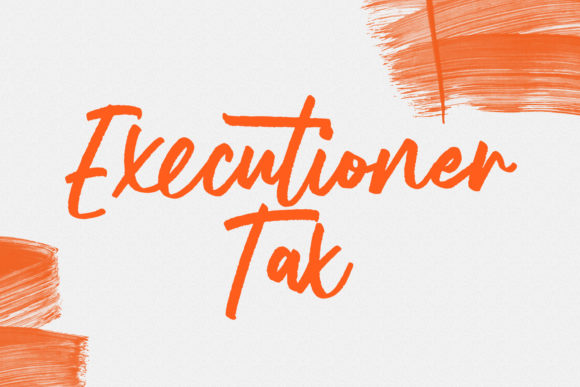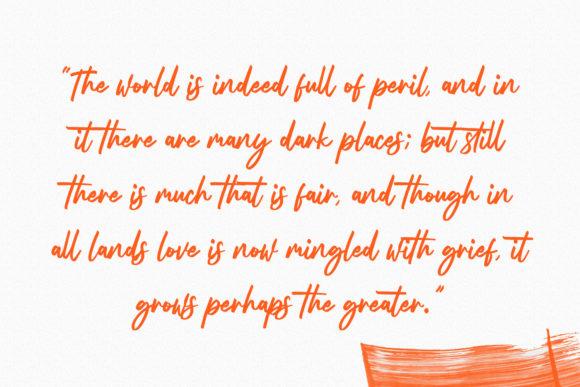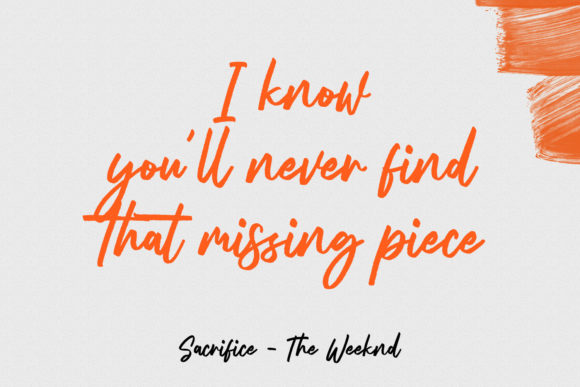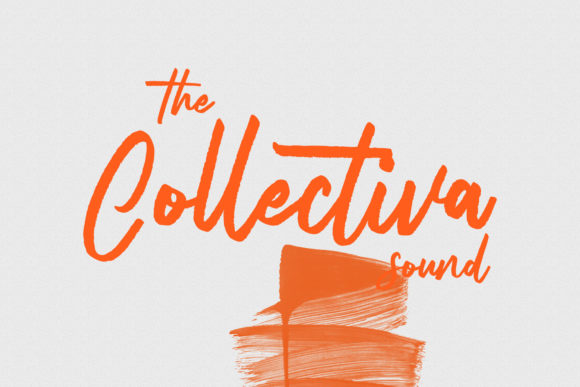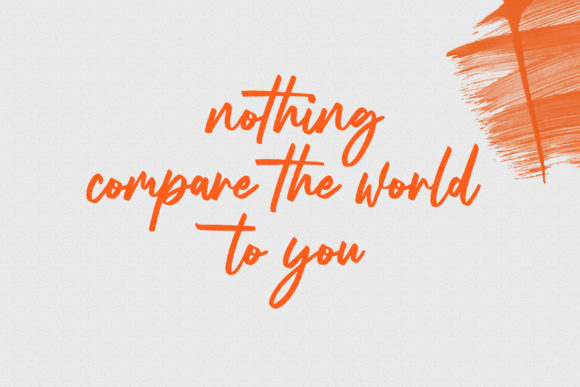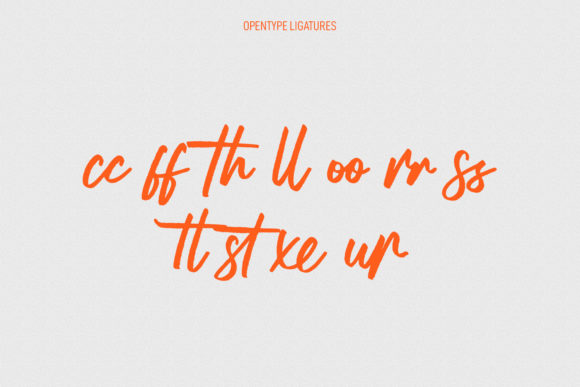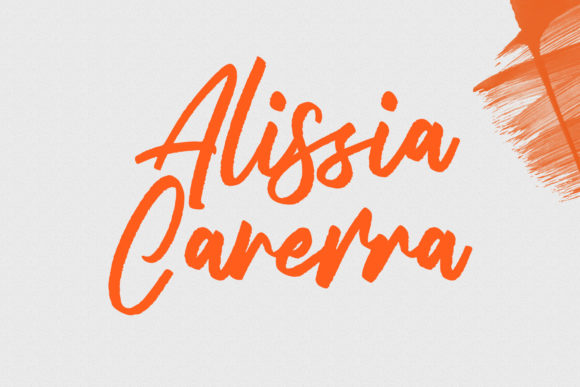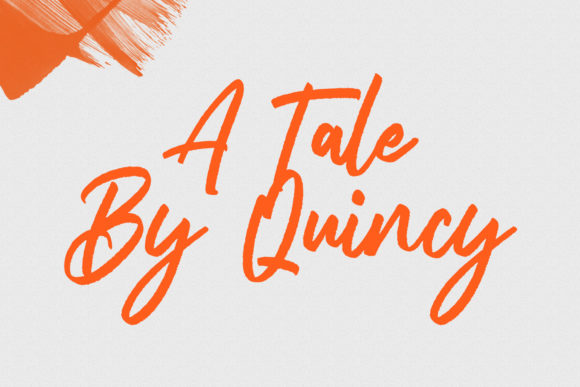
Argenthus Script Font
About Argenthus Script Font
Argenthus Script is a delicate and fashionable script font. It is perfect for any branding project such as logos, t-shirt printing, creative products, and more. It will look extraordinary in a variety of contexts.